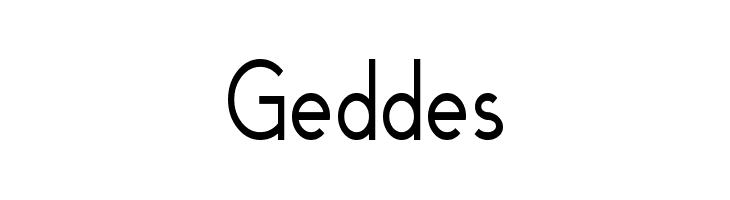
A modern, geometric sans-serif font with clean lines and balanced proportions.
A bold, expressive handwritten font with a brush-like appearance.
A modern, condensed sans-serif font with clean lines and excellent readability.
A playful, handwritten font with a whimsical and friendly style.
A bold, high-contrast font with a dramatic and striking style.
A bold, geometric font with a classic yet modern Hollywood-inspired style.
A bold, three-dimensional font with a geometric, shadowed design.
An elegant, cursive font with flowing, handwritten style.
A modern, rounded sans-serif font with a clean and approachable design.